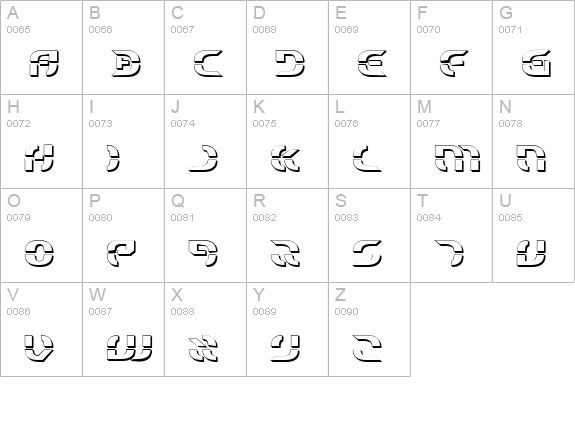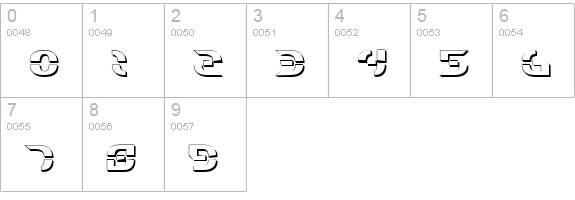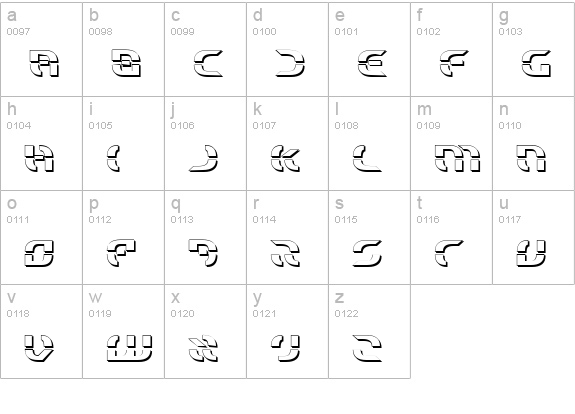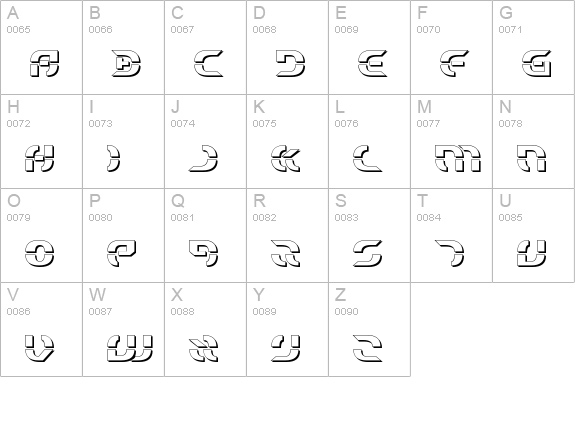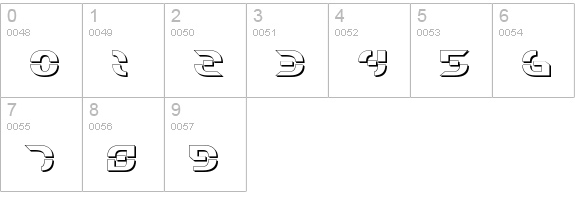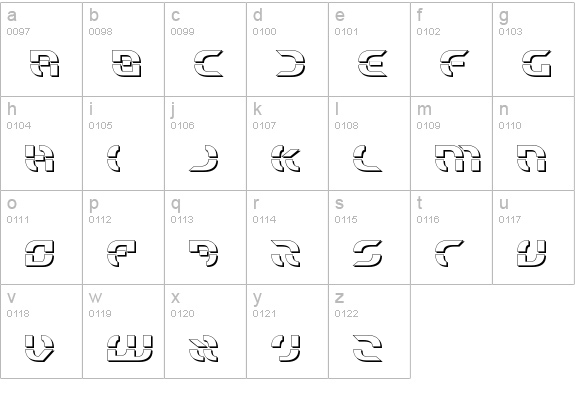
Starfighter Shadow font is a bold and futuristic typeface that exudes a sense of power and sophistication. Its sleek design and sharp edges make it perfect for projects that require a modern and dynamic look. The font's unique shadow effect adds depth and dimension, making it stand out in any design. Starfighter Shadow font is not only visually striking but also versatile, suitable for a wide range of applications including logos, headlines, posters, and more. Its clean lines and futuristic aesthetic make it a great choice for projects that need to make a bold statement. Best of all, Starfighter Shadow font is completely free to download at FontsMarket.com. Whether you're a designer looking to add a touch of sci-fi flair to your work or a hobbyist seeking a cool new typeface to play with, Starfighter Shadow font is sure to impress. Download it today and take your designs to the next level!